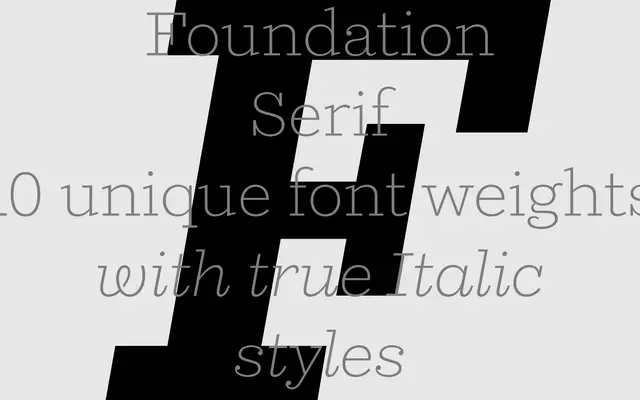
Foundation Serif
A 20-style revival serif drawing on historical specimens from America, France and the Nordic countries, spanning Thin to Heavy with matching italics.
Part of A2-Type's wider Foundation collection of 100 fonts, this serif member of the suite takes its cues from historical typeface specimens across three distinct geographic traditions. The weight range runs from Thin through to Heavy, with italic companions at every step, giving it flexibility across editorial, print and branding contexts. The collection also includes Foundation Serif Didot as a separate sub-family, extending the historical reach further.
Described as a revival inspired by historical typeface specimens from America, France and Nordic countries, placing it firmly in the serif revival tradition with a broad, multi-source historical reference.